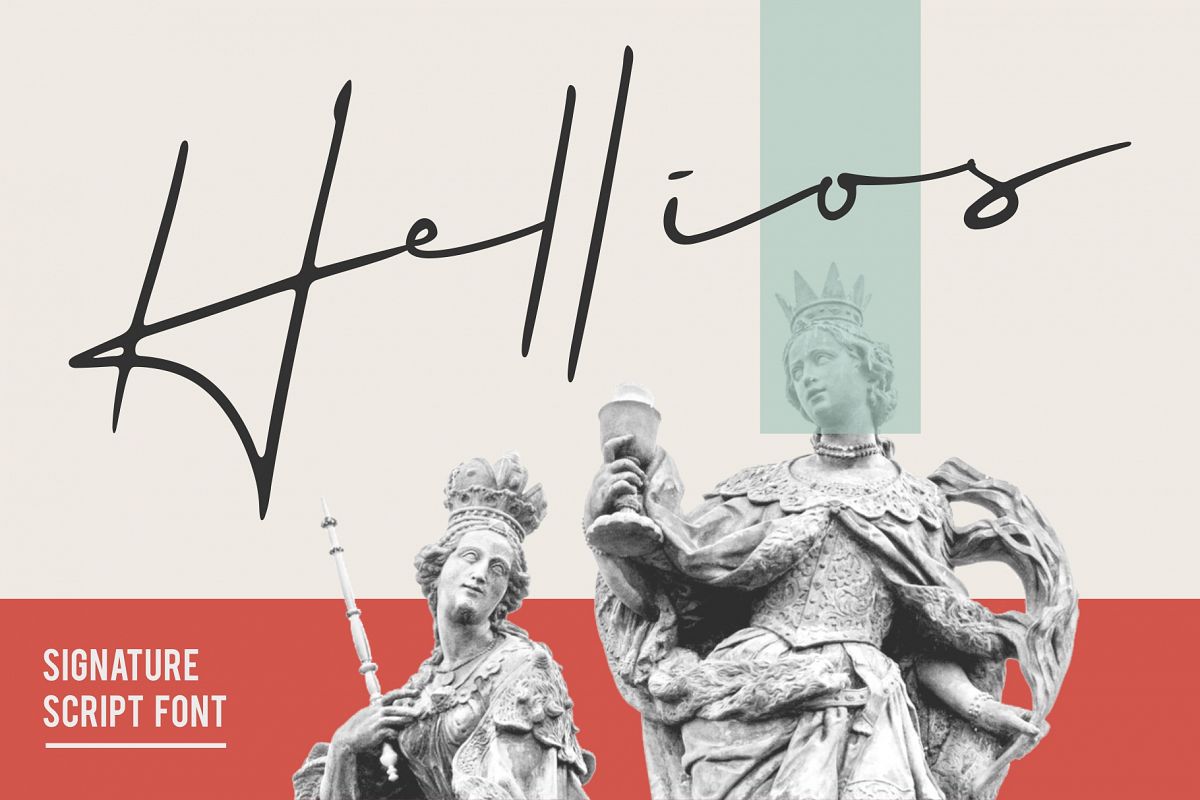
Helios Signature Font
Hellios Signature Font is a Handwritten Script Font With a natural effect of an ink. It has multipurpose value such as digital signature, Branding, Email signature, Quote, and much more.Features :
• 25 Ligatures (see preview)
Hellios has become one of my favorite fonts for personal brands and to add an extra classy but casual touch to designs.